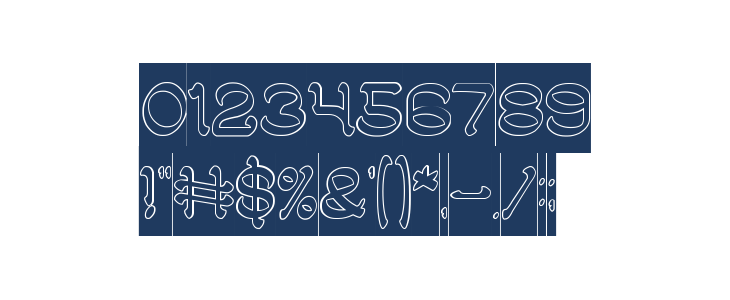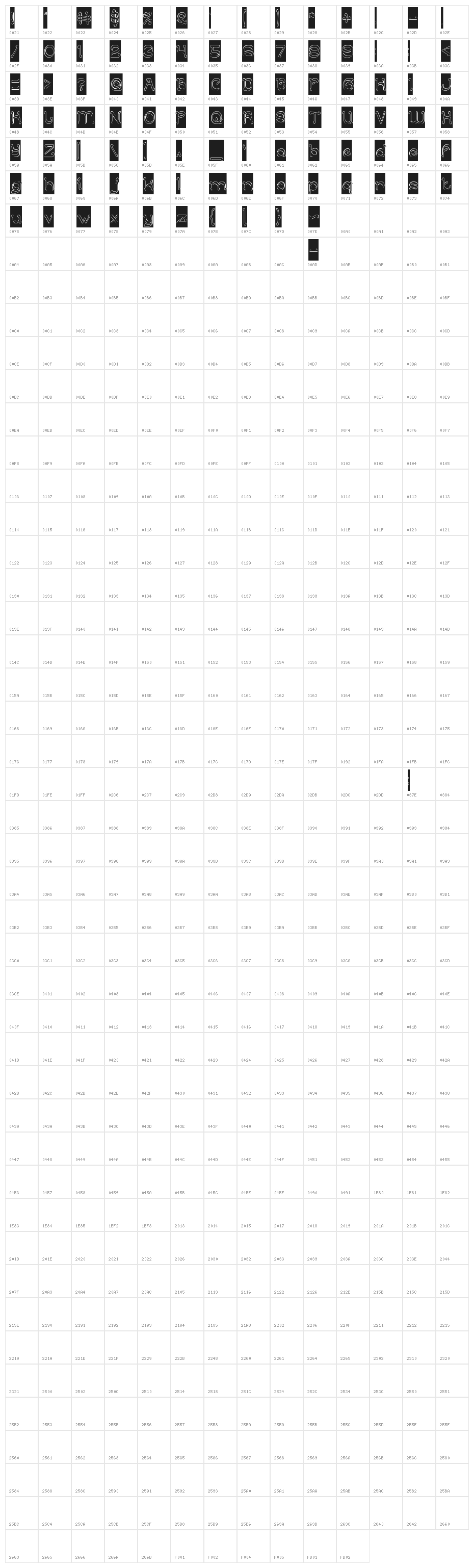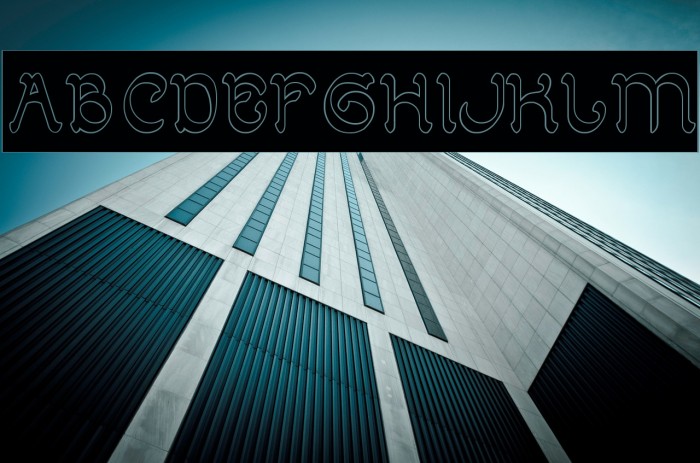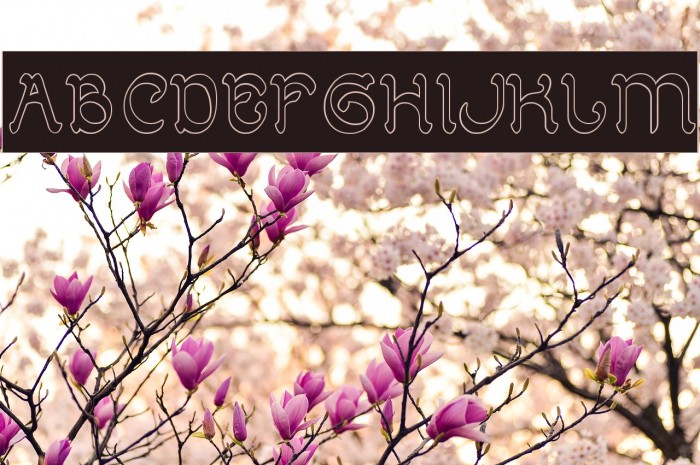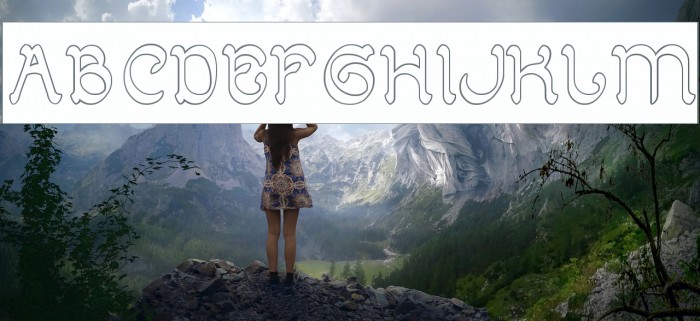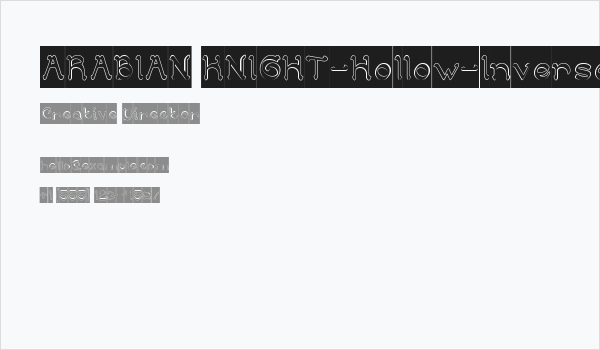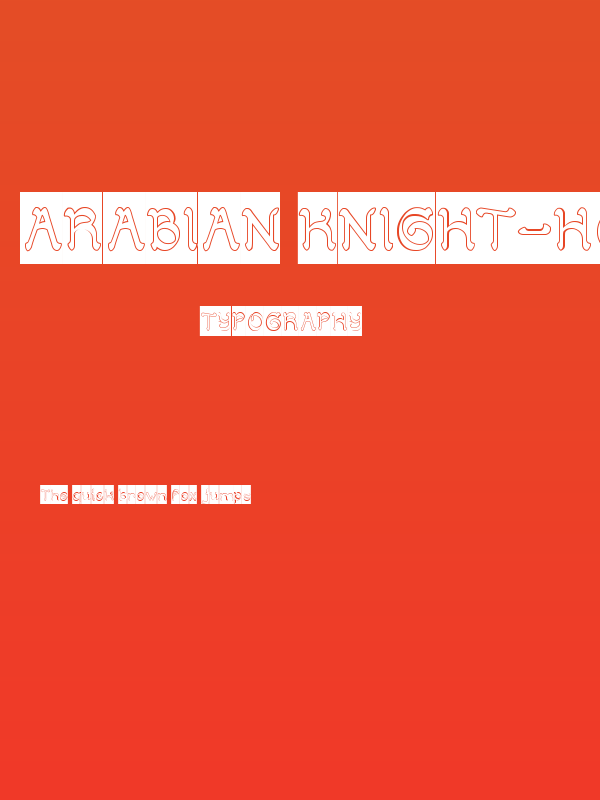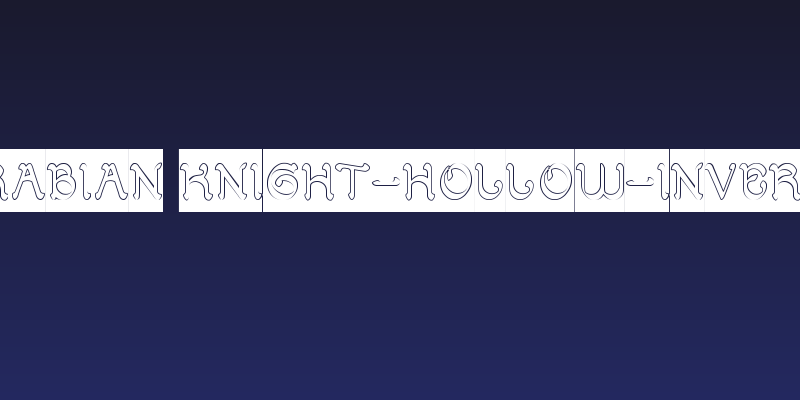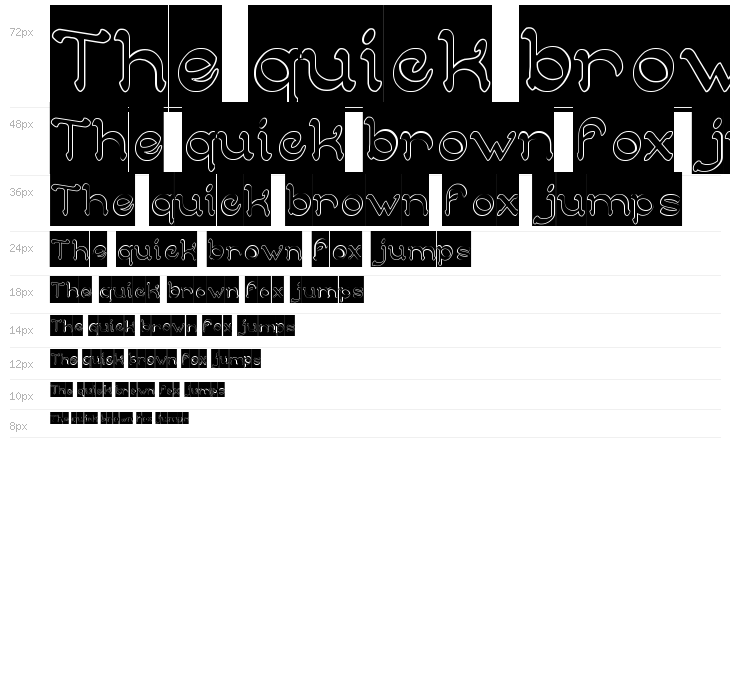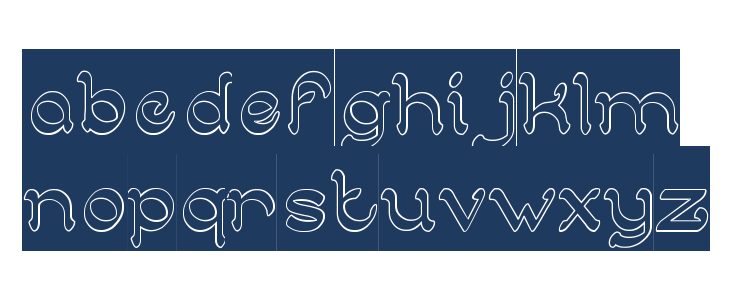
ARABIAN KNIGHT-Hollow-Inverse Font
ARABIAN KNIGHT-Hollow-Inverse Description
This font features a unique hollow design with an inverse style, giving it a distinct and eye-catching appearance. The characters are outlined with a consistent stroke, creating a bold yet airy look. The uppercase and lowercase letters maintain a playful and decorative style, with rounded edges and smooth curves. The numbers and special characters follow the same design principles, ensuring a cohesive appearance across all glyphs. This font's hollow nature makes it ideal for designs that require a standout, artistic touch.
| Use Case | Logos, Posters, Creative projects |
| Proposed Projects | Ideal for posters, logos, and creative projects that require a bold, artistic flair. |